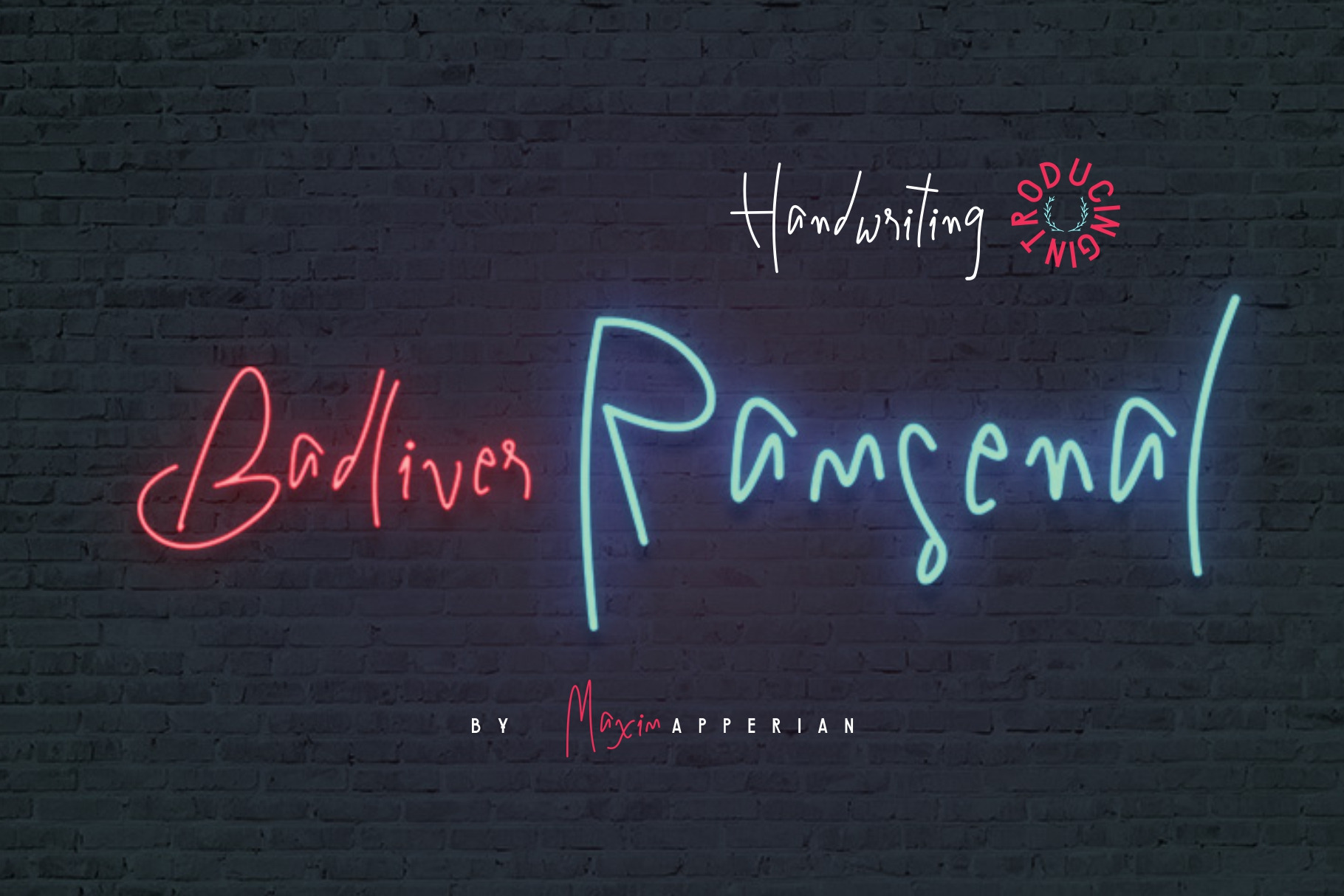
Badliver Ramsenal Handwriting Font
Give your designs an authentic handcrafted feel. “Badliver Ramsenal Hanwriting Font” is perfectly suited to stationery, business card, logos and much more